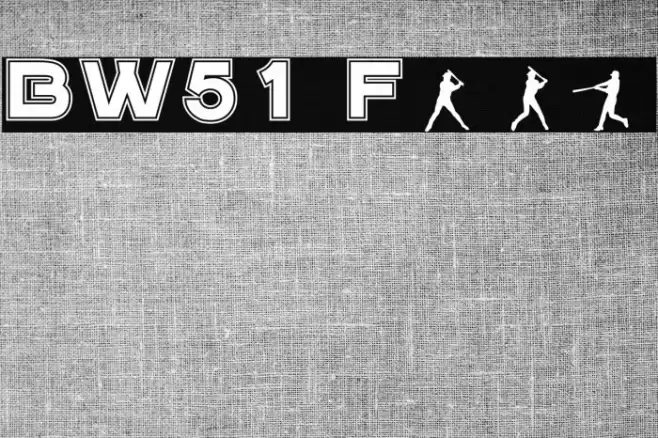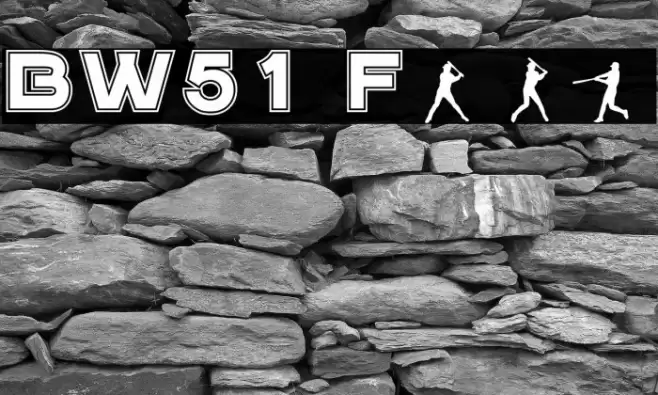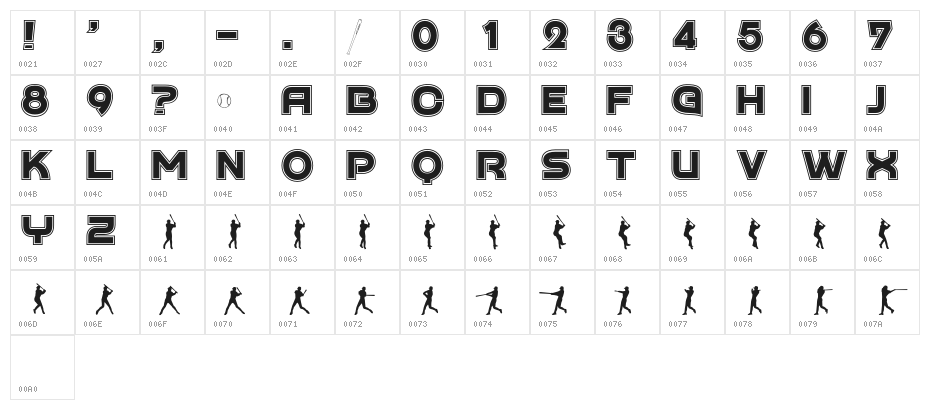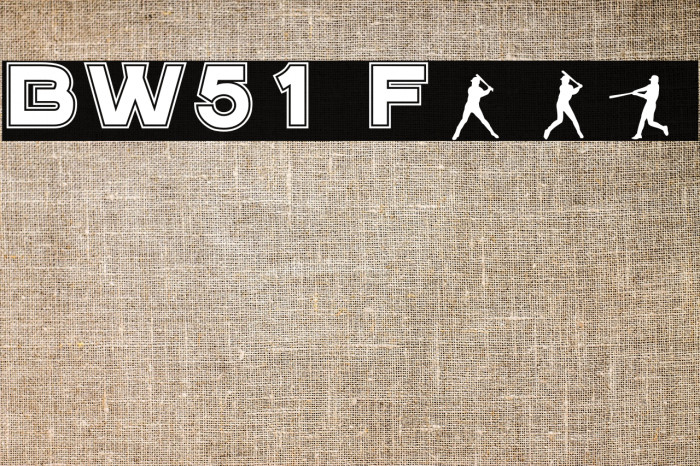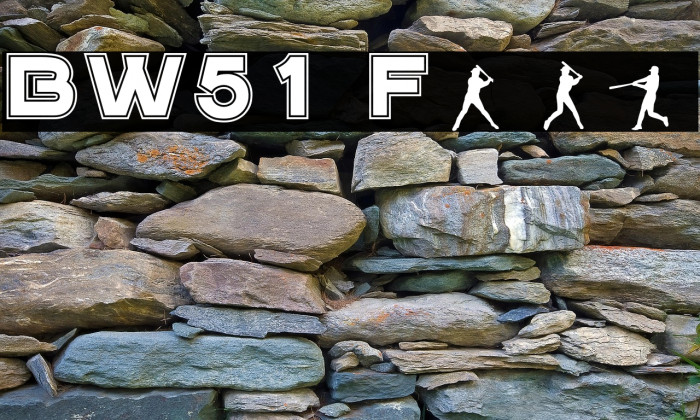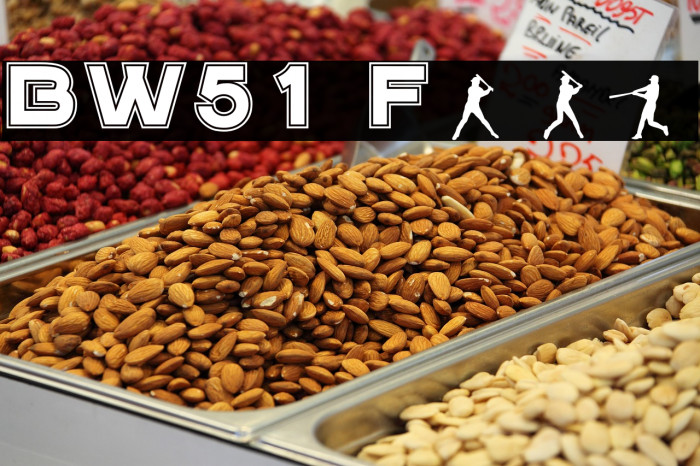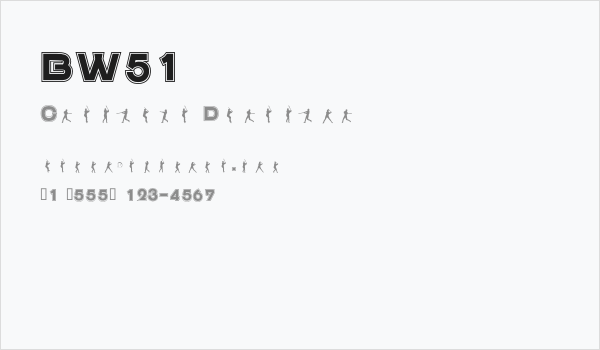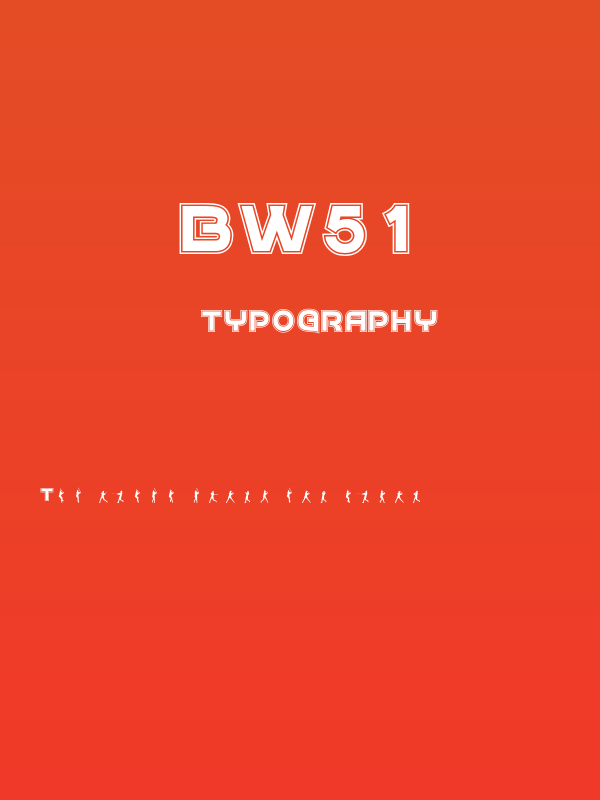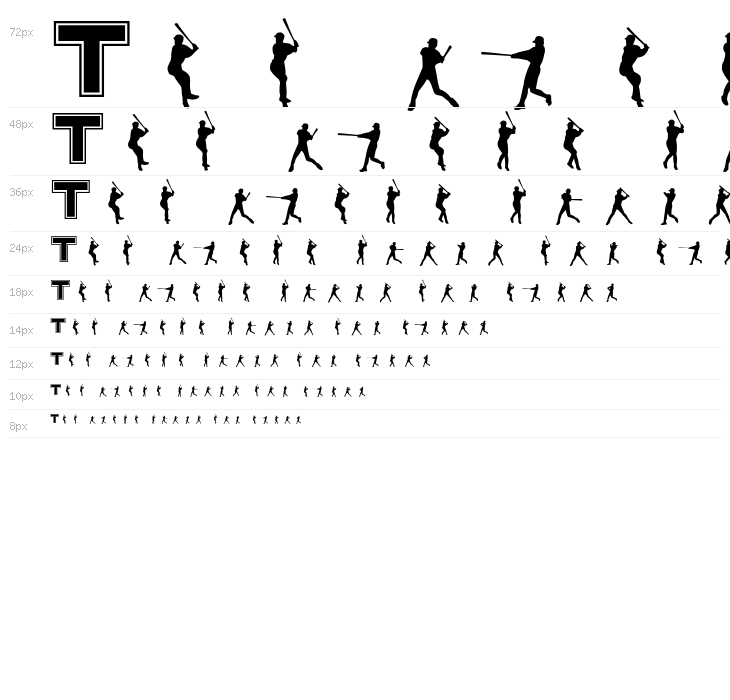
BW51 Font
BW51 Description
This font features a bold, geometric design with a strong, modern aesthetic. The uppercase letters are characterized by thick lines and a consistent stroke width, creating a sense of stability and strength. The numbers follow the same design principles, ensuring uniformity across all characters. The font includes a unique set of special characters, maintaining the bold and structured appearance. The overall style is clean and impactful, making it suitable for attention-grabbing designs.
A bold, geometric font with a modern and structured design from Uncategorized fonts.